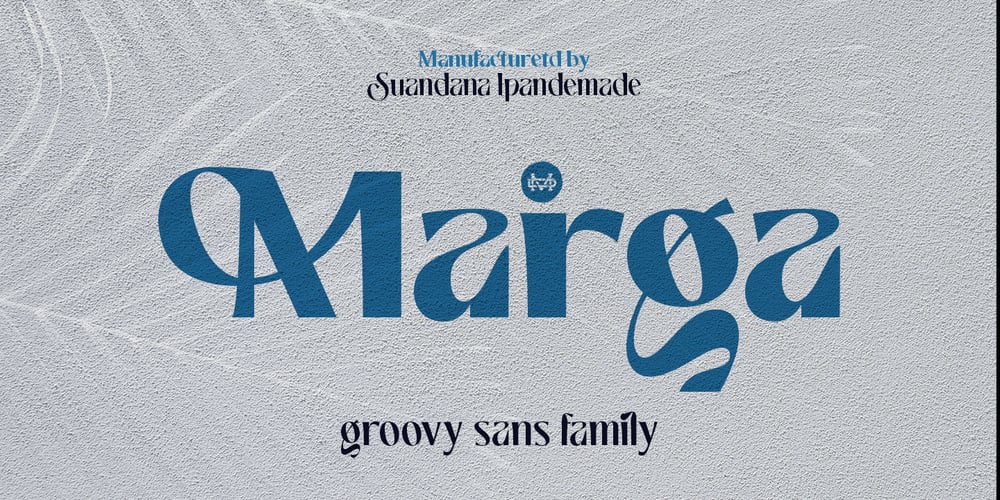
Marga
Marga font
Marga Font Family was designed by Suandana ipandemade, madededuk and published by madeDeduk. Marga contains 18 styles and family package options. Introducing Marga is a groovy sans family with much special alternative glyphs and ligatures comes with 9 variable weight to get more stunning. Use this font family for any branding, product packaging, invitation, quotes, t-shirt, label, poster, logo etc.Feature 9 Weight Uppercase & Lowercase Number & Symbol International Glyphs Alternative & Ligatures Multilingual support Feel free to drop us a message any time and follow my shop for upcoming updatesShoot me on email at: dedukvic@gmail.com and find more previews on my Instagram here : https://www.instagram.com/acekelgondolayu/?hl=enHope you enjoy it.